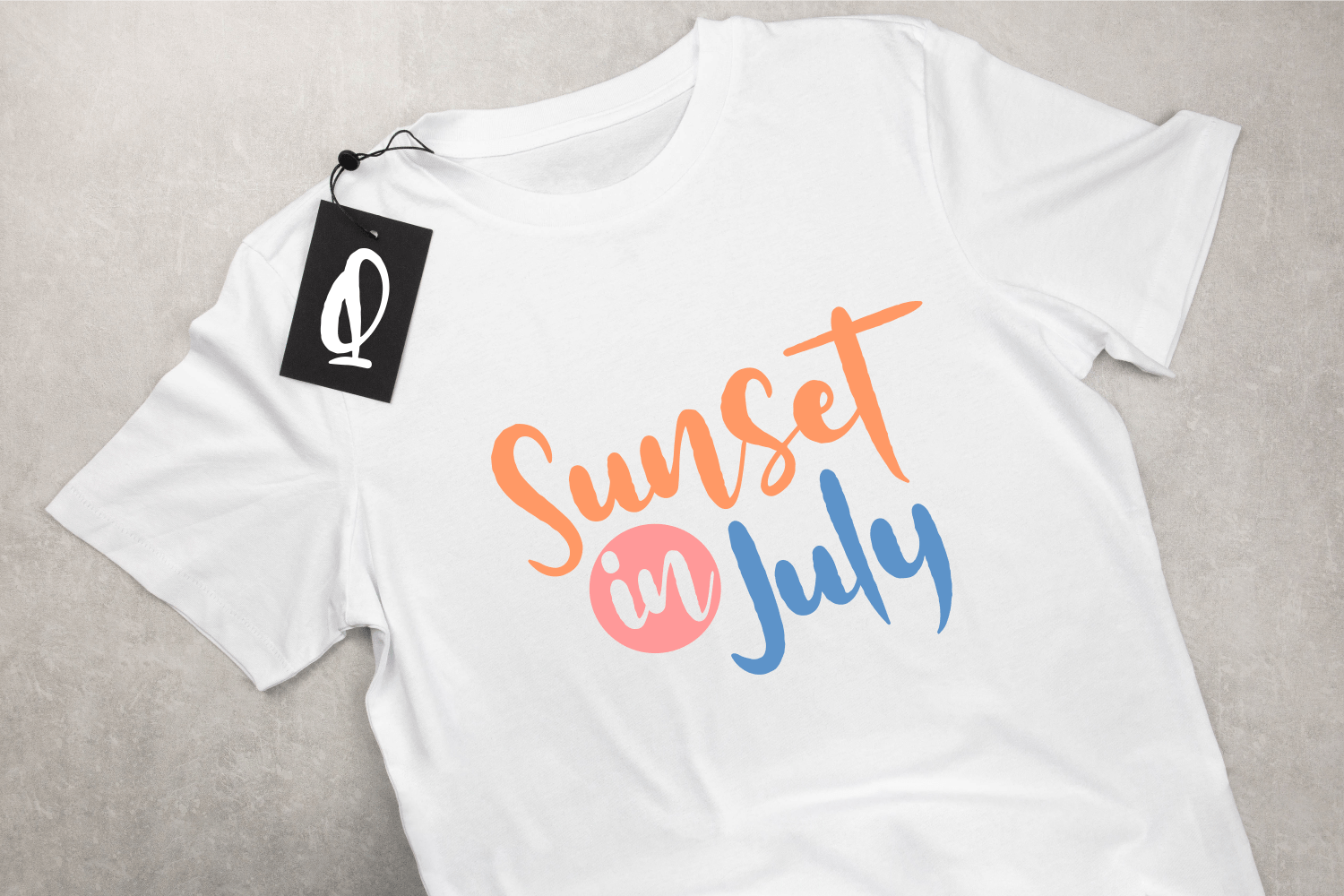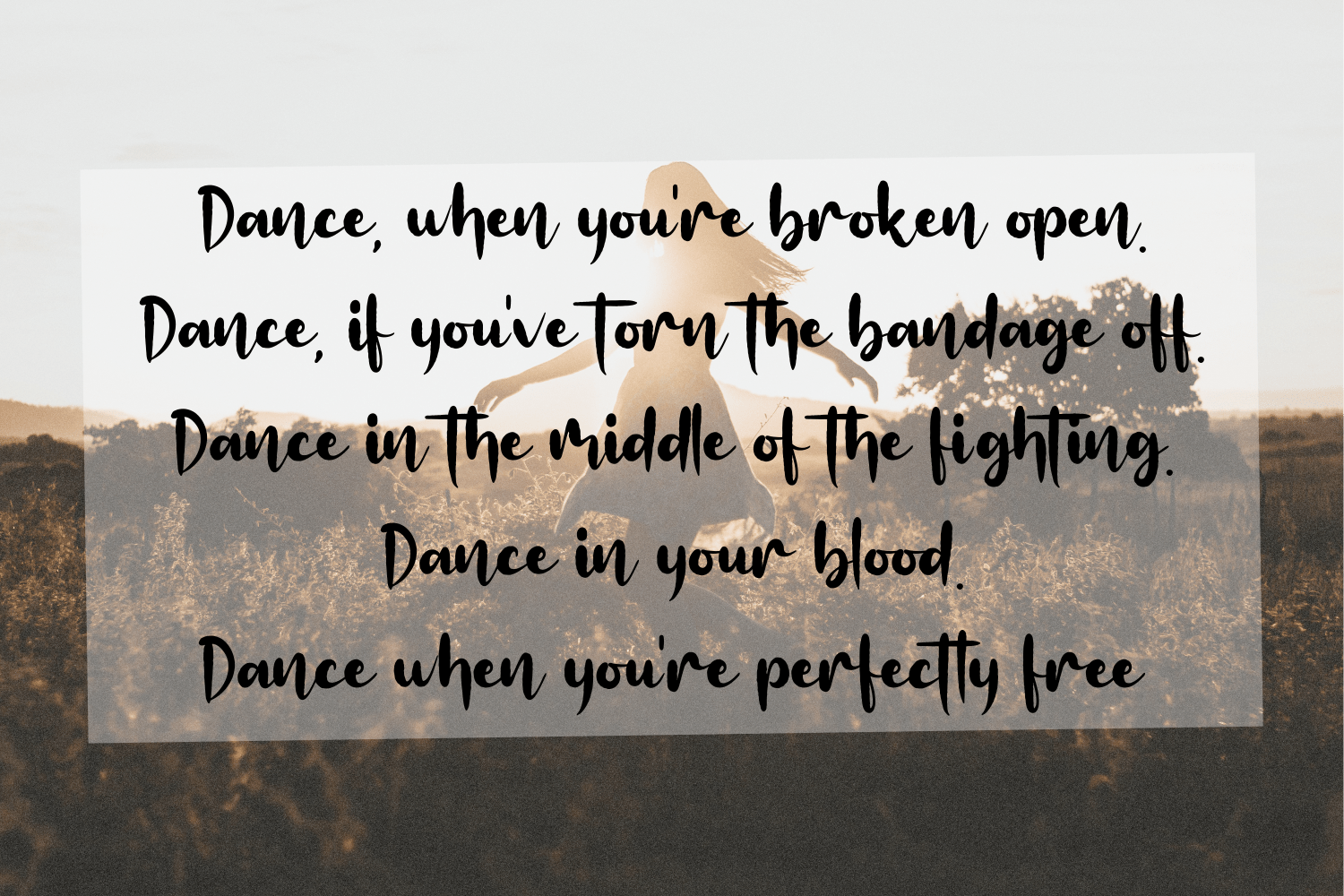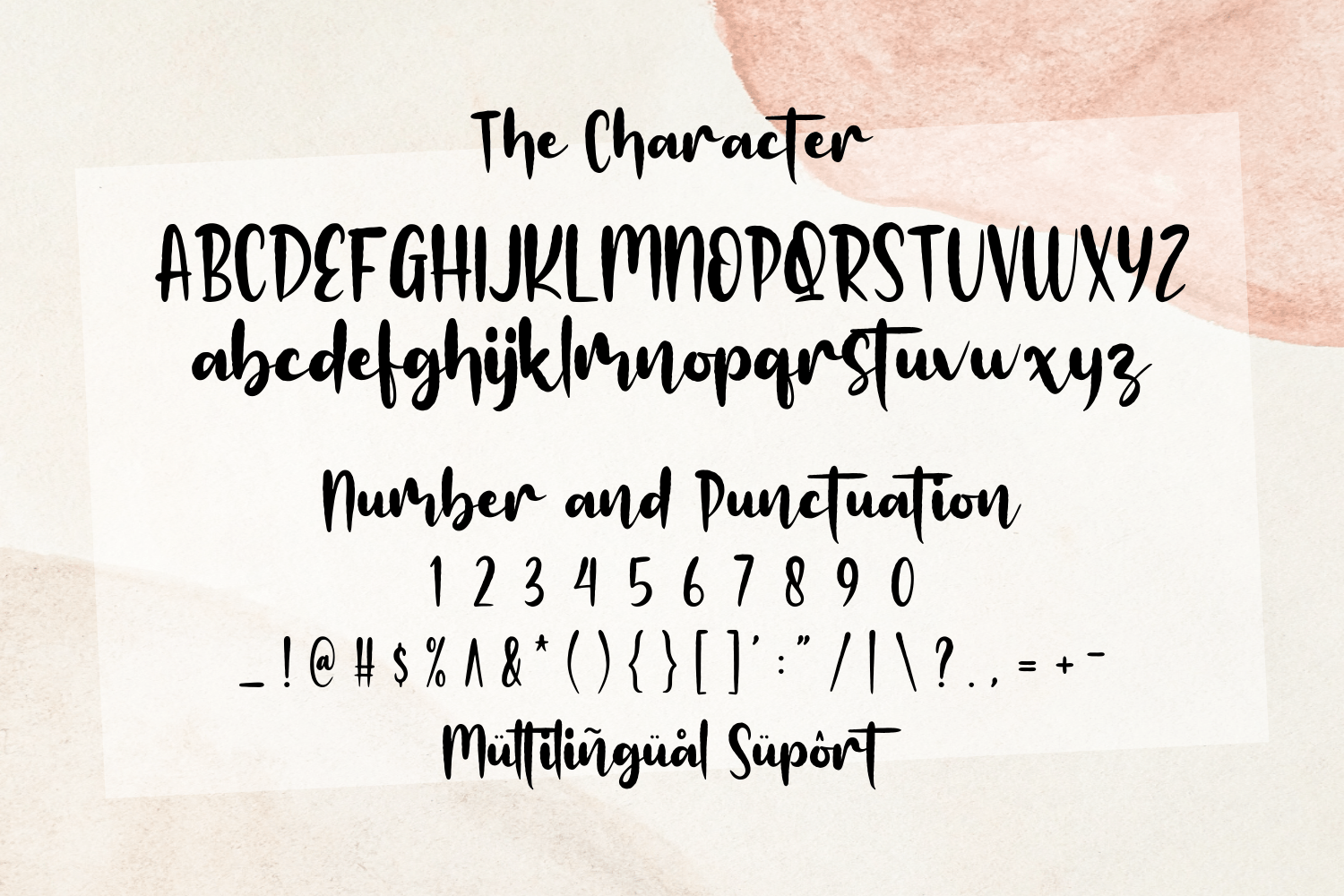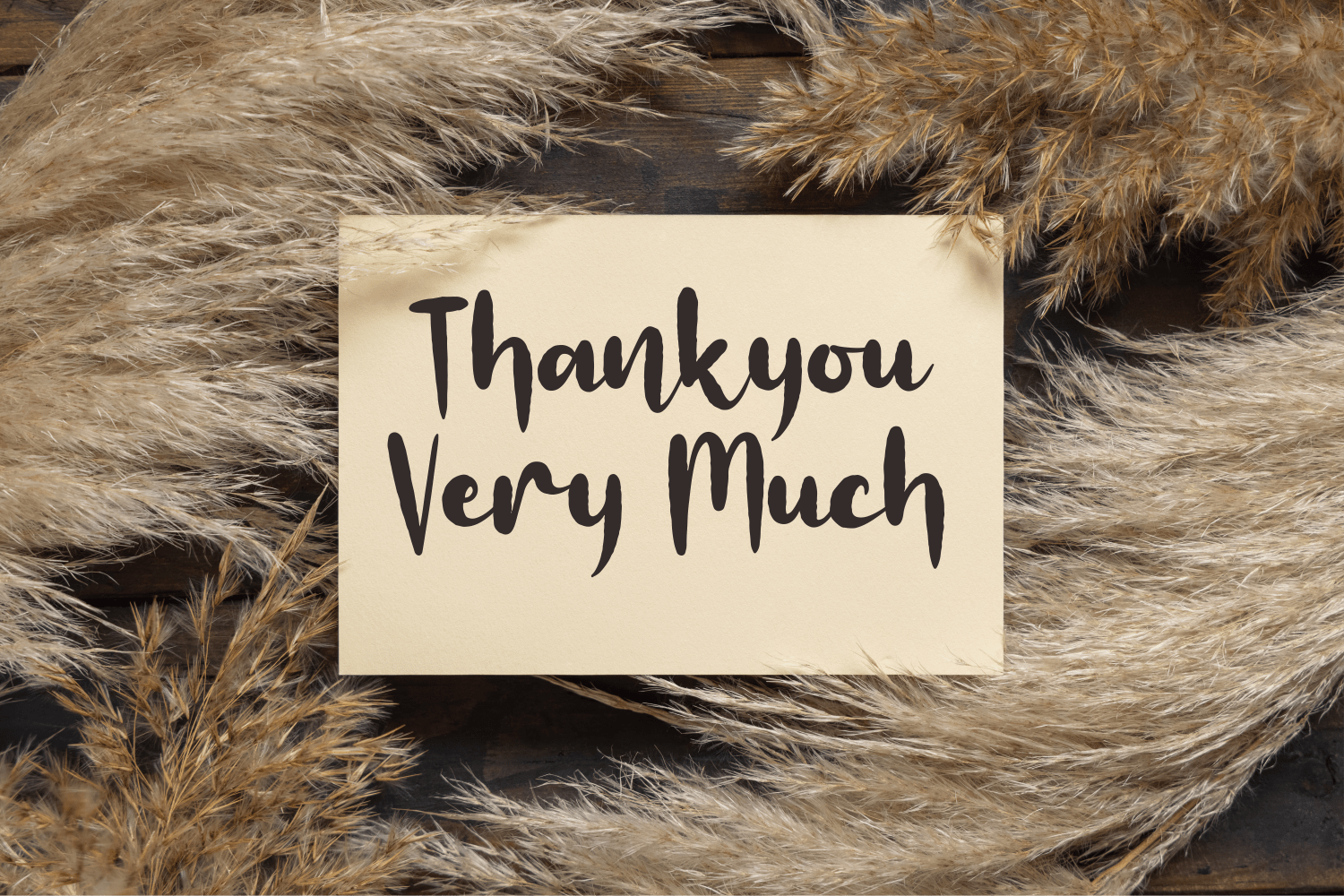
Grateisy Font
Grateisy Script Font is a chunky lettered and stylish script font. It will elevate a wide range of crafting ideas, from cards, to branding, labels and much more.